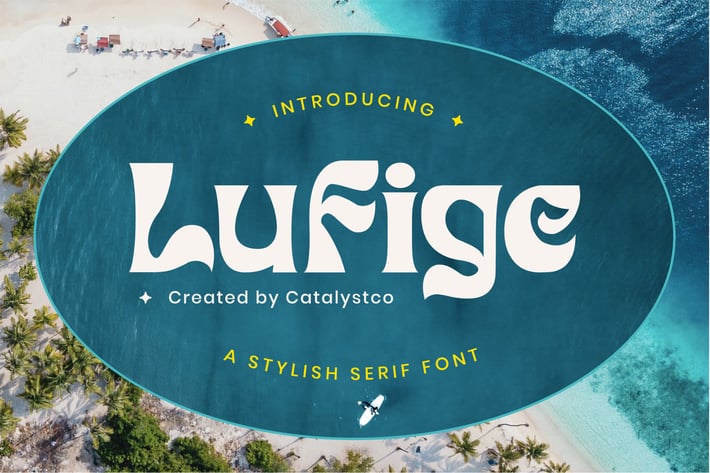
Lufige Stylish Serif Font
Lufige: Retro Serif FontLufige emerges as a stylish serif font that radiates a playful and distinctly groovy charm, perfectly capturing a retro aesthetic with a modern twist. Its unique letterform structure features bold, rounded serifs and flowing curves, creating a visually engaging and friendly appeal. This font is designed to infuse designs with a sense of fun and individuality, making it an excellent choice for projects that aim to stand out with a distinctive and memorable style. Lufige is perfect for conveying a lighthearted yet sophisticated vibe, making it particularly well-suited for lifestyle brands, creative campaigns, and any design that benefits from a touch of whimsical elegance.